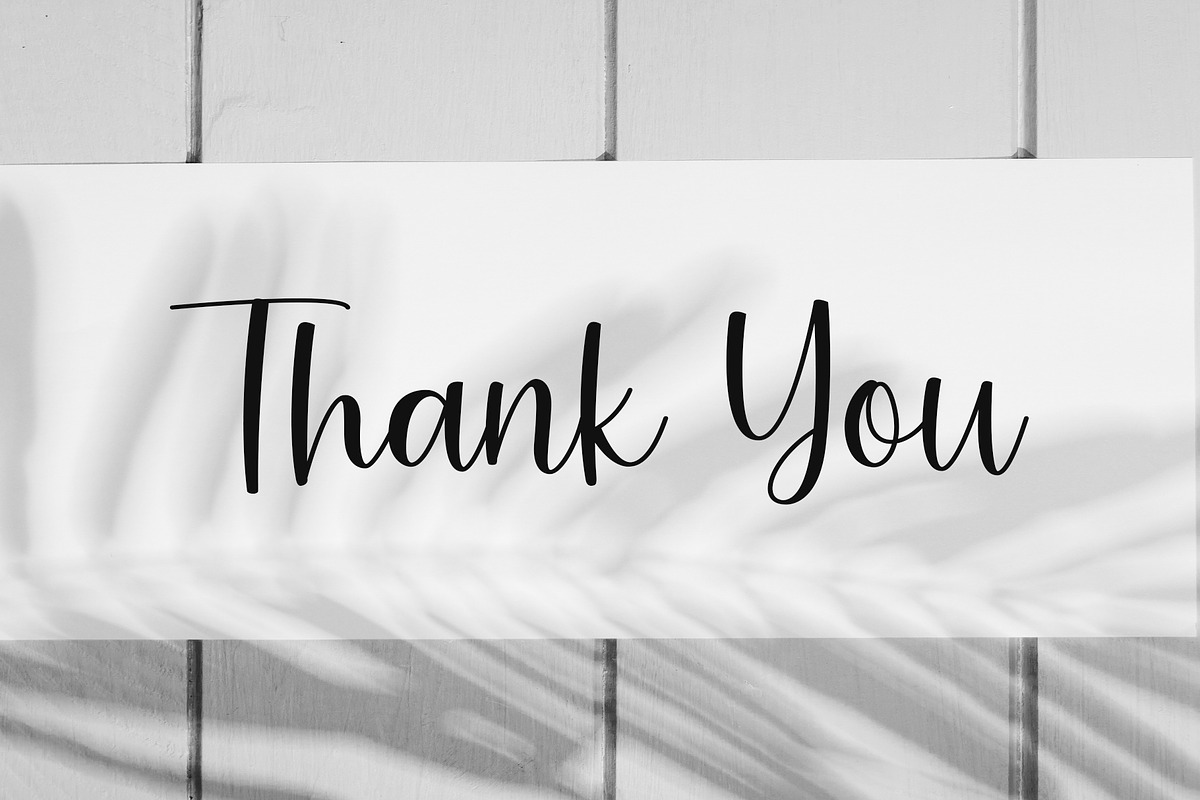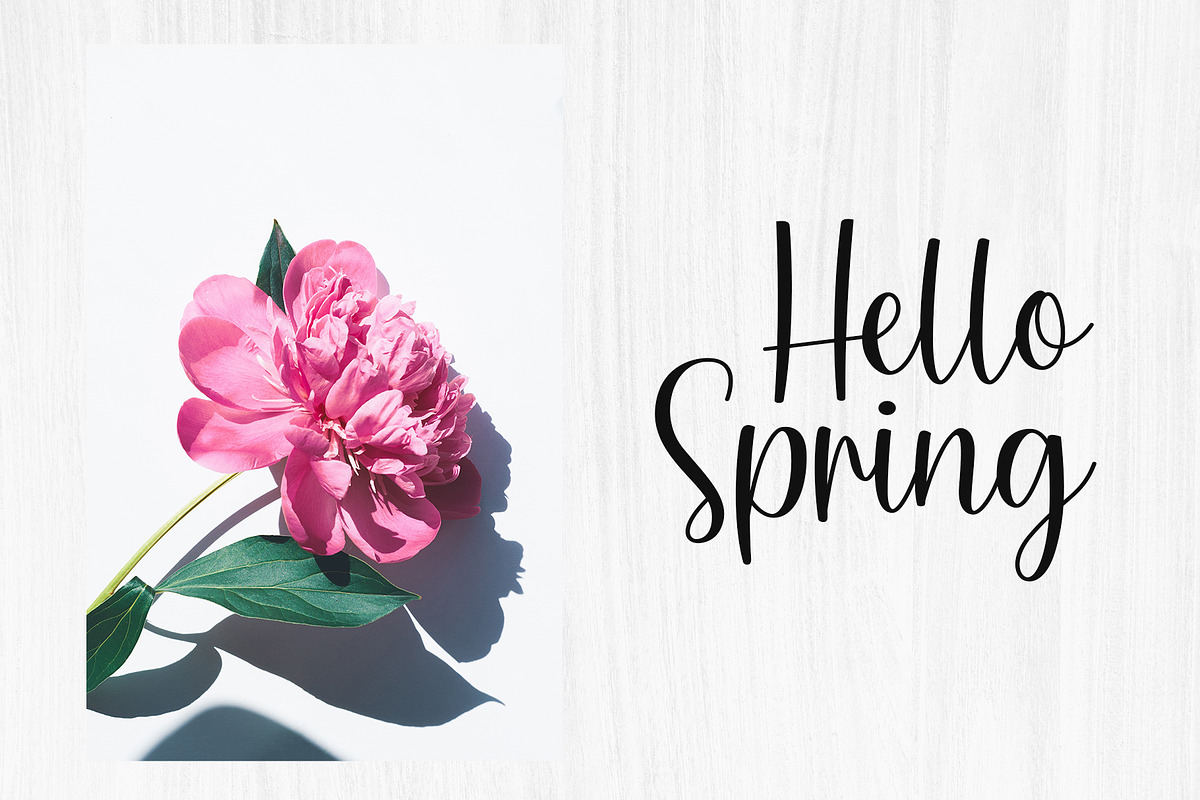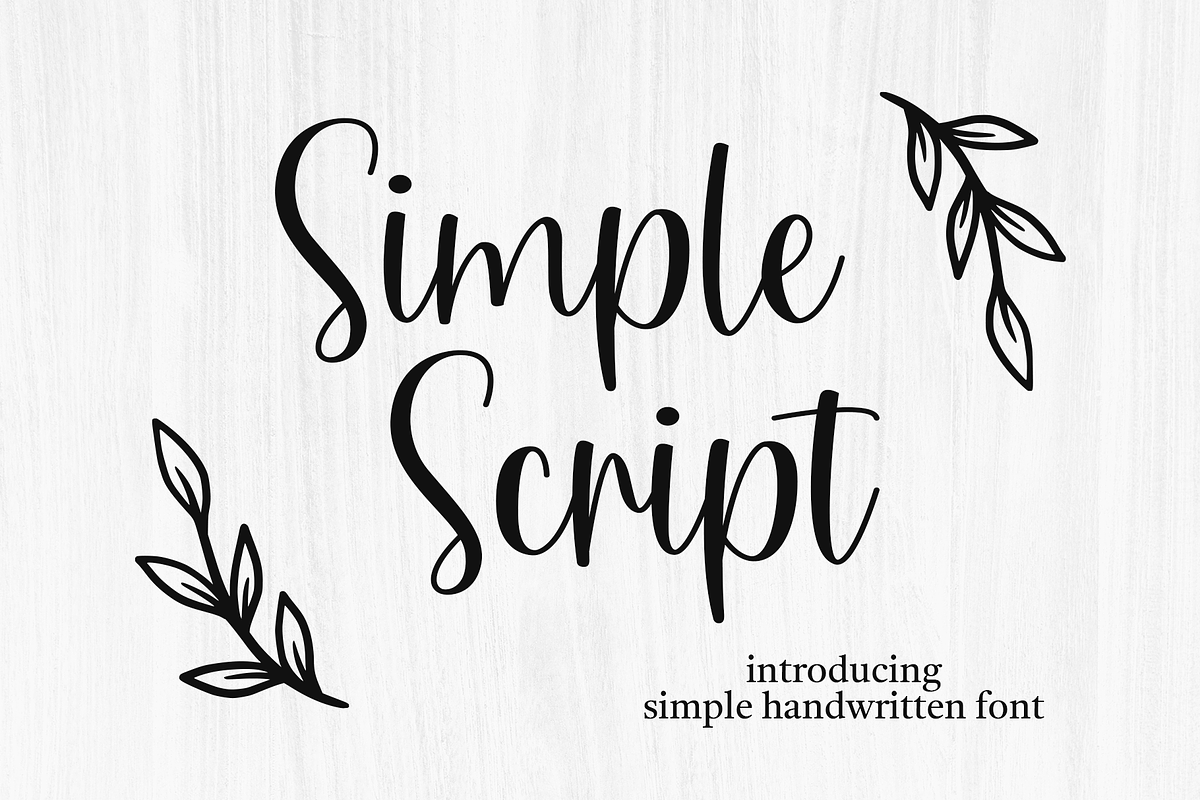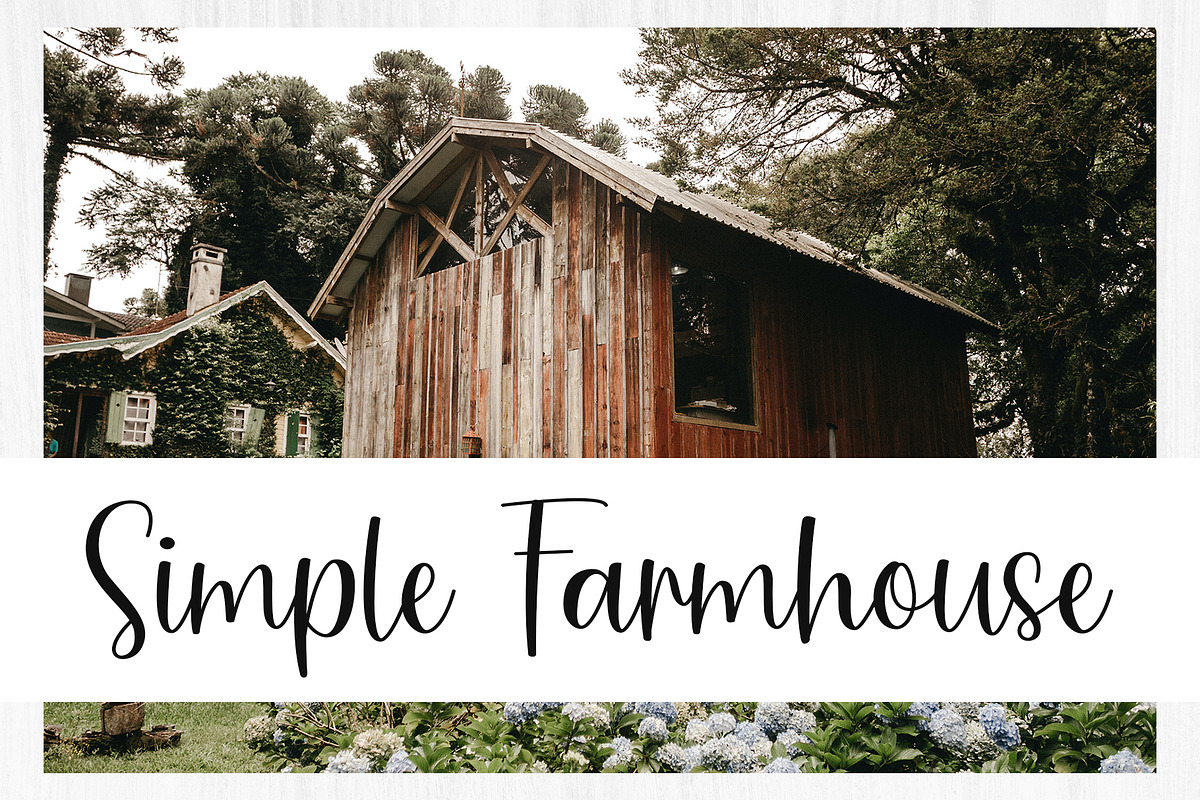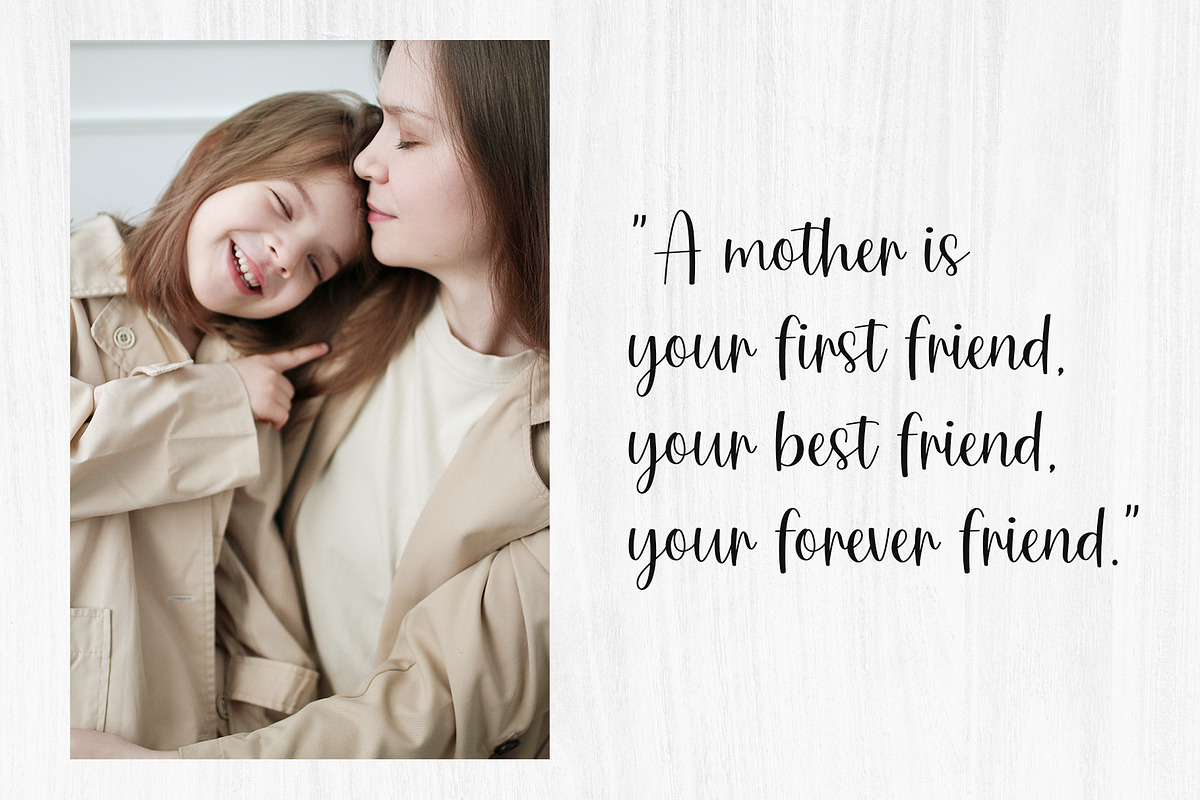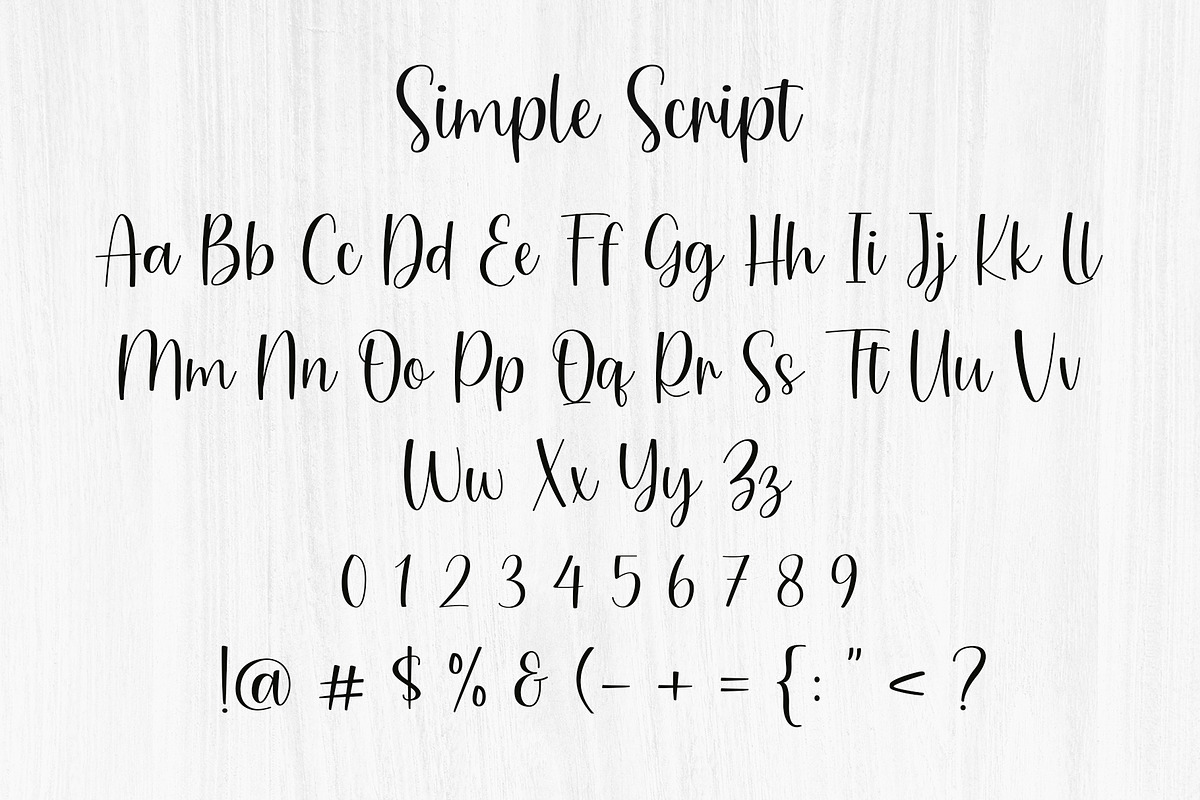
Simple Script
Simple Script is elegant and luxurious handwriting, this font gives off an elegant yet concise impression, it is perfect for invitation cards, quotes, crafts, digital design, presentations, or making greeting cards, your hands will all be extraordinary!